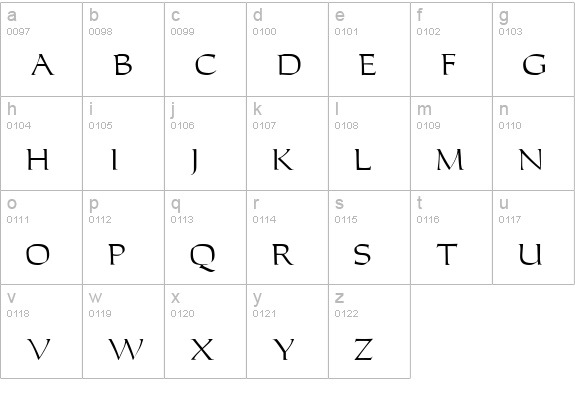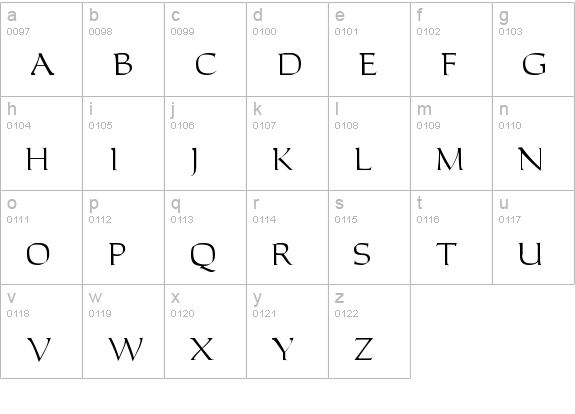
Carleton Font Details
Carleton font offers a perfect blend of elegance and modernity, making it a versatile choice for various design projects. With its clean lines and sophisticated curves, Carleton exudes a sense of refinement and professionalism. This timeless font is suitable for both headings and body text, enhancing readability and visual appeal. The best part about Carleton font is that it is available for free download at FontsMarket.com. This means that you can easily access this high-quality typeface without any cost, making it a valuable addition to any designer's toolkit. Whether you are working on branding materials, editorial layouts, or digital designs, Carleton font is sure to elevate your project with its timeless charm and versatility. Download Carleton font today and experience the beauty of this exquisite typeface for yourself.